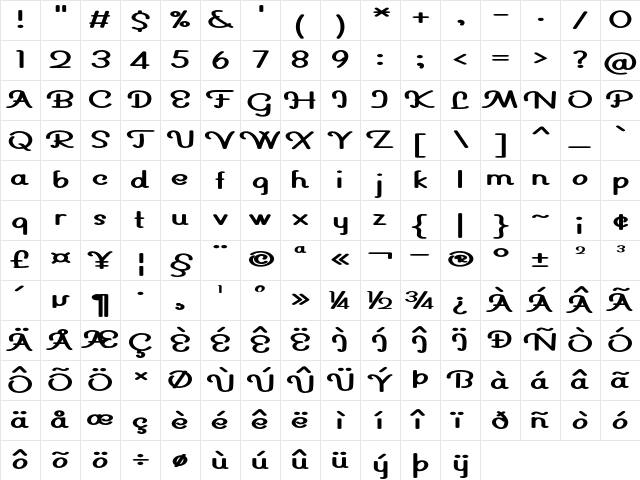
Marriwether Extra-expanded Bold Free Font
Marriwether Extra-expanded Bold
Style: Extra-expanded Bold
Design Context for Marriwether
Marriwether is a composed and adaptable typeface that performs quietly and consistently across a wide range of design contexts. Its bold stroke weight gives it real presence on the page.